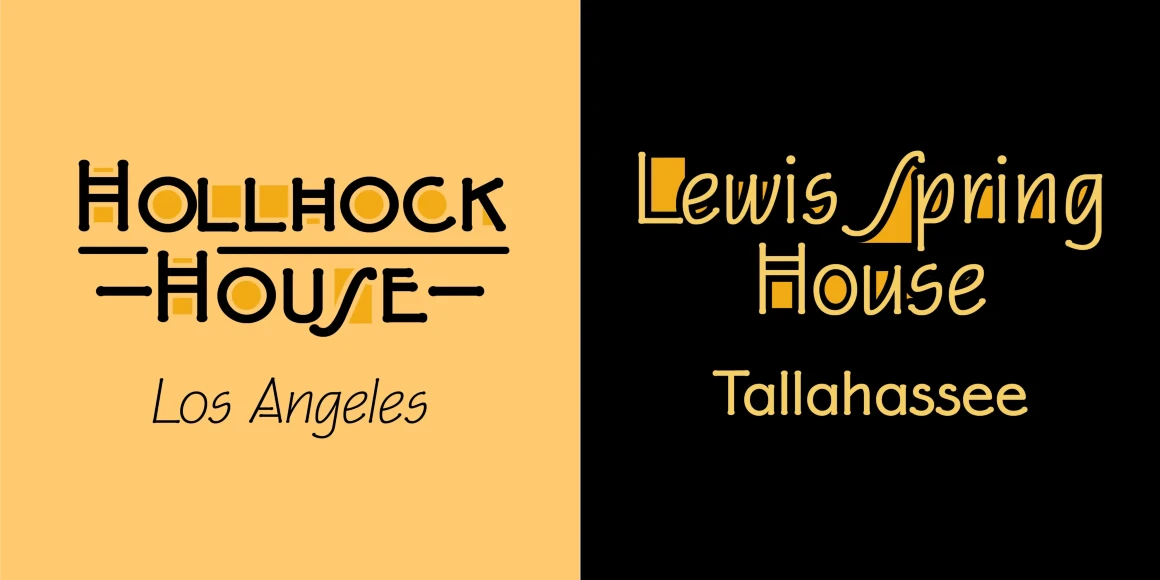
FLW Eaglefeather
This font family is based on the alphabet designed by Frank Lloyd Wright for the “Eaglerock” project in 1922. The Eaglefeather family features expanded OpenType font options. It contains 15 pro styles and 20 basic styles in 5 weights- Hairline, Light, Regular, Bold, and Black. In addition to small caps, italics, and a unique “informal” version (an upright italic.) There is coverage for Cyrllic, Greek and European Latin languages. OpenType features include automatic fractions, optimized kerning, and localized language features. Alternate forms of capitals A,H,N, & S are also included for added flexibility. The full range of weights and styles allows for expanded typographic possibilities in a wide variety of uses. P22 Eaglefeather Font Family was designed by David Siegel, Richard Kegler, Frank Lloyd Wright and published by P22 Type Foundry. P22 Eaglefeather contains 36 styles and family package options.
Designed by Richard Kegler & Frank Lloyd Wright